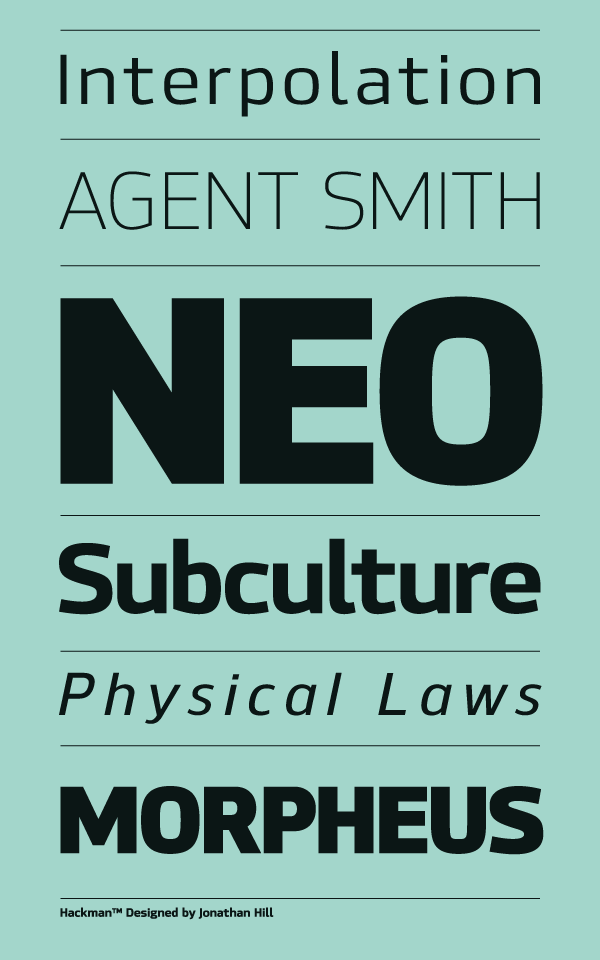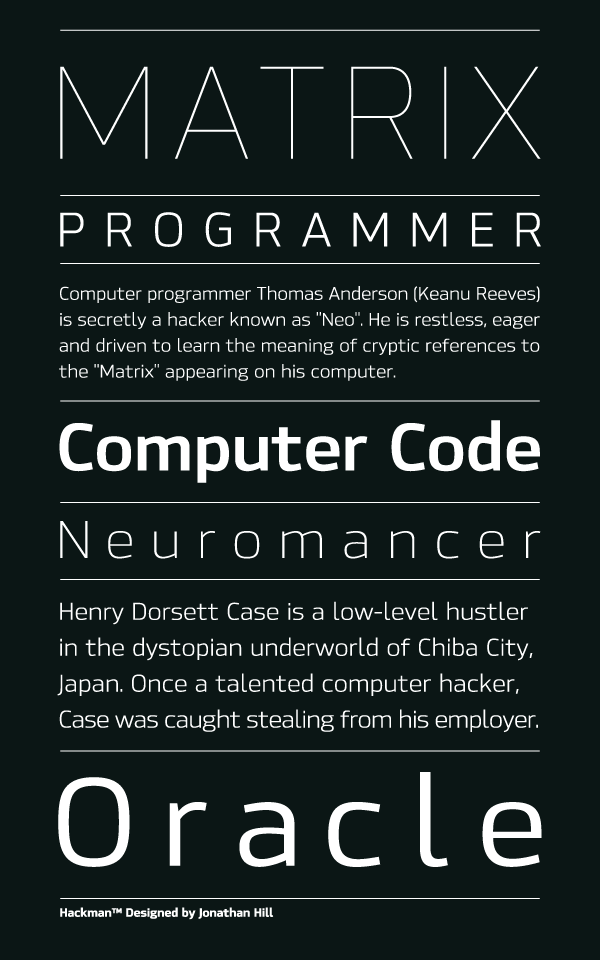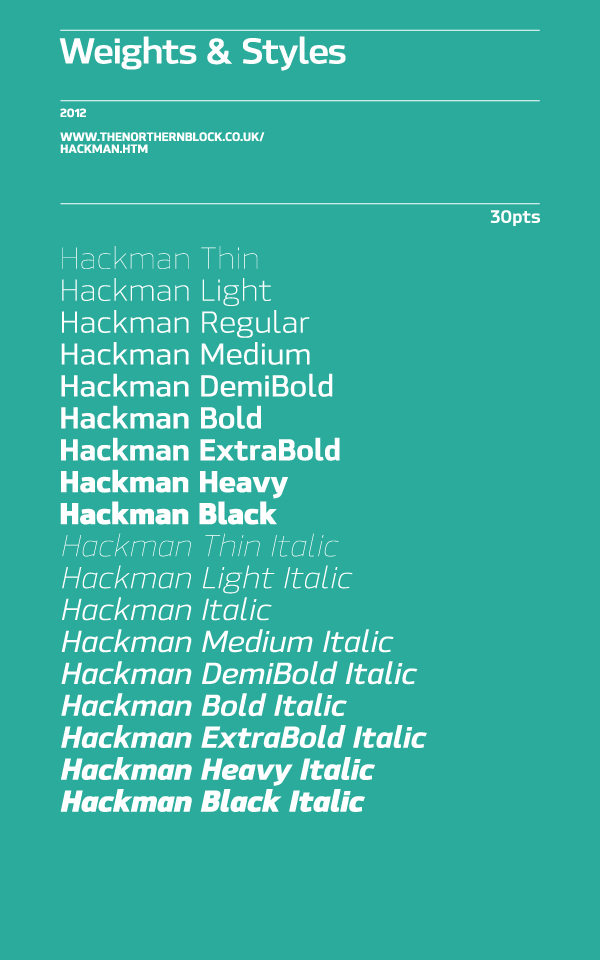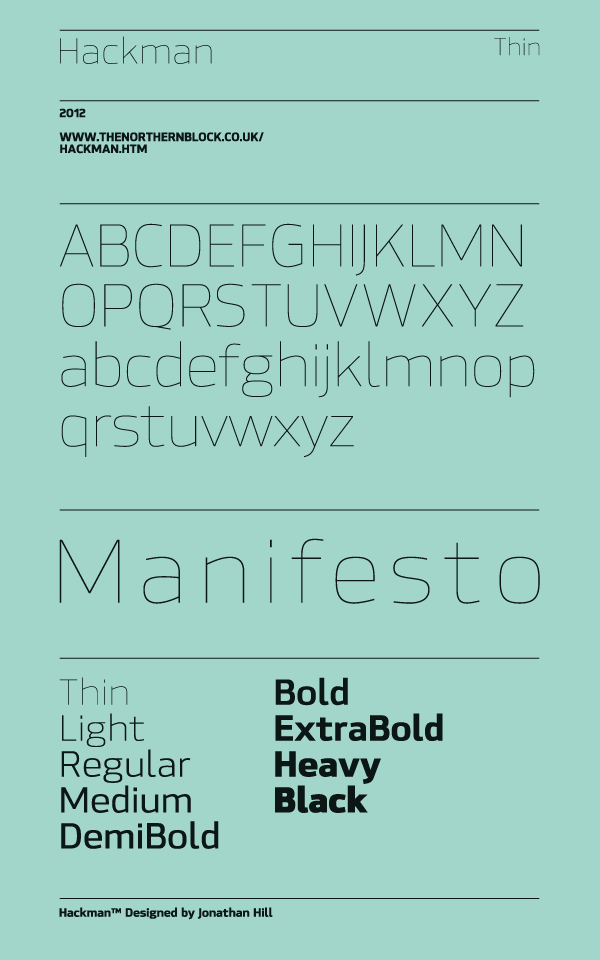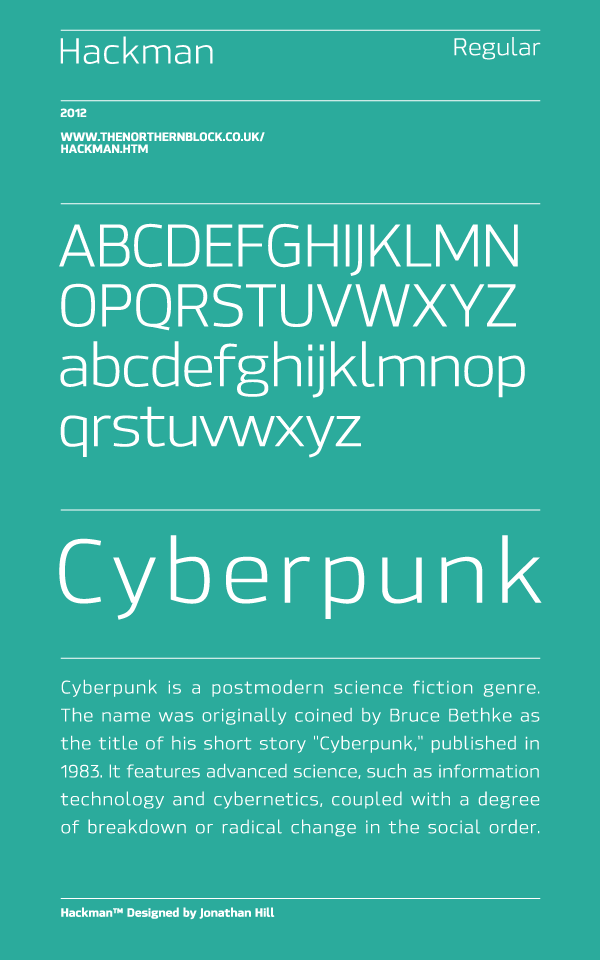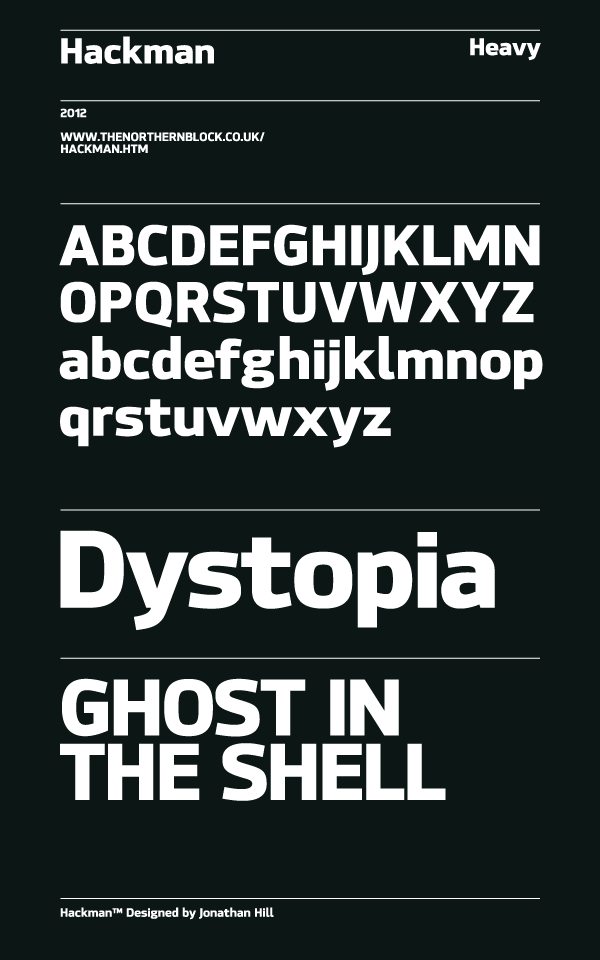
Hackman Font Family.
Hackman is a geometric sans serif font with a contemporary shape by font designer Jonathan Hill. The typeface is based on harmonious curves combined with classical letterforms. Hackman is well suited to identity, mobile and web applications. The complete type family includes 9 weights + italics, 500 characters, 5 variations of numerals, stylistic alternatives, manually edited kerning and OpenType features.